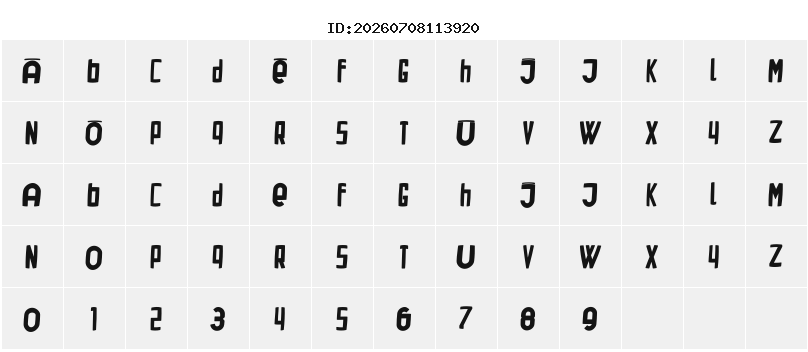
About DadaSchwitters.ttf
DadaSchwitters.ttf is a modern, elegant sans-serif font designed for ultimate readability and visual harmony. Perfect for branding, headlines, web design, and print materials.